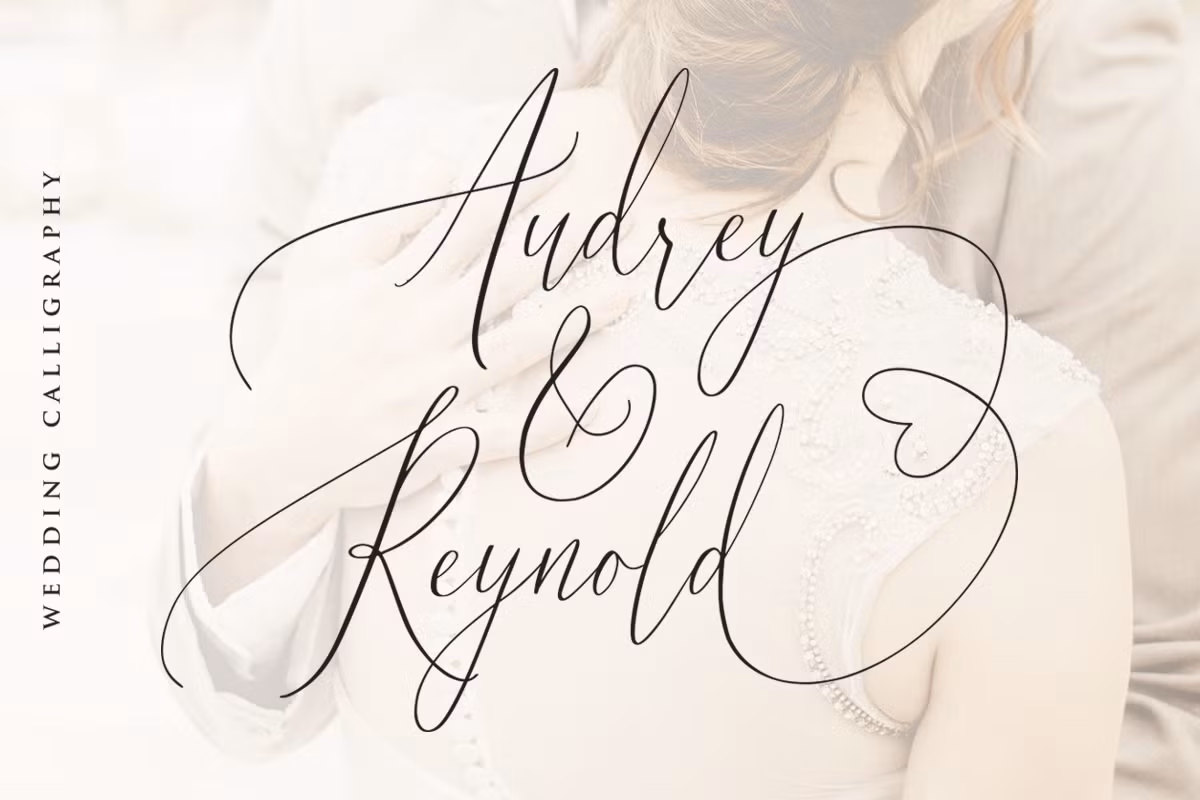
Audrey & Reynold – Luxury Script Font Free Download is a sophisticated and elegant handwritten script font that captures the essence of luxury and refinement. With its smooth, flowing lines and delicate curves, Audrey & Reynold is perfect for high-end branding, wedding invitations, logos, fashion designs, and any project that requires an upscale, timeless feel.
The font features intricate details and graceful ligatures that give your typography a personalized, bespoke appearance. Whether you're designing for a luxury brand or crafting an elegant event invitation, this font adds class and charm to any project.